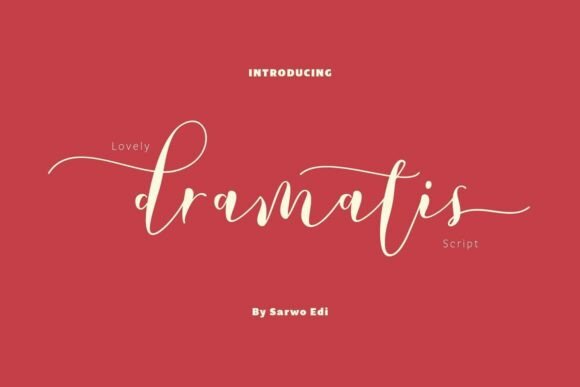
Lovely Dramatis Font: Elevate Your Design with Modern Script Elegance
In the world of typography, a font can make all the difference in the aesthetic and feel of a design project. For those seeking a modern script typeface that exudes charm, personality, and playful elegance, Lovely Dramatis is an exceptional choice. This beautifully crafted font is designed to bring a touch of sophistication and whimsy to a wide range of applications, from fashion labels and wedding boutiques to e-commerce brands and inspirational quotes.
What Makes Lovely Dramatis Stand Out?
Lovely Dramatis is not just another script font; it’s a comprehensive typeface that offers a rich set of features to enhance your designs. With 484 glyphs at your disposal, you’ll have access to a wide array of swashes, ligatures, alternates, and broad international language support. This extensive feature set empowers you to design with confidence and creativity, ensuring that your projects stand out with a unique and captivating flair.
Perfect for a Variety of Design Projects
The versatility of Lovely Dramatis makes it suitable for numerous design applications. Here are some of the areas where this font truly shines:
- Fashion Labels: Add a touch of elegance and modernity to your fashion brand’s logo, packaging, or marketing materials.
- Wedding Boutiques: Create stunning wedding invitations, decorations, and other stationery with a font that embodies romance and sophistication.
- E-commerce Brands: Enhance your brand’s online presence with a stylish and contemporary font that captures the essence of your products.
- Photography Watermarks: Add a professional and artistic touch to your photos with a discreet yet elegant watermark.
- Inspirational Quotes: Share motivational and uplifting messages with a font that conveys warmth, positivity, and playfulness.
Create Stunning Typographic Combinations
One of the key benefits of Lovely Dramatis is its ability to create effortless and expressive typographic combinations. The font’s clean, contemporary flair makes it easy to pair with other typefaces, ensuring that your designs feel both modern and timeless. Whether you’re working on a logo, a poster, or a digital advertisement, Lovely Dramatis provides the perfect foundation for stunning typography.
Lovely Dramatis Font Details
Here are some key details about Lovely Dramatis:
- Glyphs: 484
- Features: Swashes, ligatures, alternates, and broad international language support
- Style: Modern script typeface
- Elegance: Playful yet sophisticated
Why Choose Lovely Dramatis?
With so many fonts available, why should you choose Lovely Dramatis for your next design project? Here are a few compelling reasons:
- Unique Personality: Lovely Dramatis brings a distinct personality to your designs, setting them apart from the ordinary.
- Versatility: Suitable for a wide range of applications, from fashion and weddings to e-commerce and photography.
- Ease of Use: Despite its extensive feature set, Lovely Dramatis is easy to use, making it accessible to designers of all skill levels.
- Modern Aesthetic: The font’s contemporary flair ensures that your designs feel fresh and up-to-date.
In conclusion, Lovely Dramatis is a versatile and elegant modern script typeface that can elevate any design project. Its extensive feature set, including swashes, ligatures, and alternates, provides designers with the tools they need to create stunning typographic combinations. Whether you’re working on a fashion label, wedding boutique, e-commerce brand, or simply looking for a beautiful font for your inspirational quotes, Lovely Dramatis is an excellent choice. Its unique blend of charm, personality, and playful elegance ensures that your designs will stand out with a touch of sophistication and whimsy.
Final Thoughts
Lovely Dramatis is more than just a font; it’s a design solution that can transform your projects with its modern script elegance. By choosing Lovely Dramatis, you’re not just selecting a typeface; you’re embracing a design philosophy that values creativity, expressiveness, and aesthetic appeal. So why settle for ordinary when you can create something extraordinary with Lovely Dramatis?